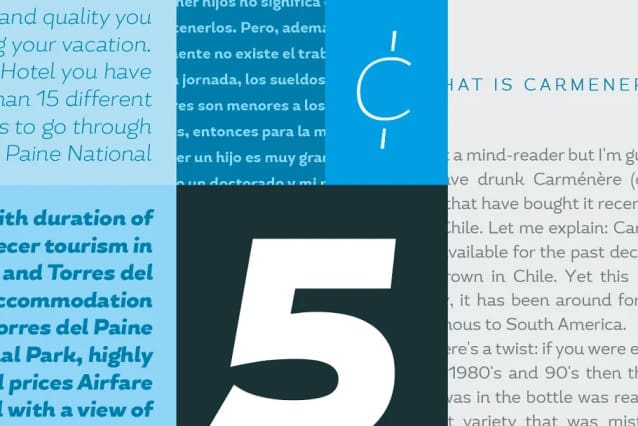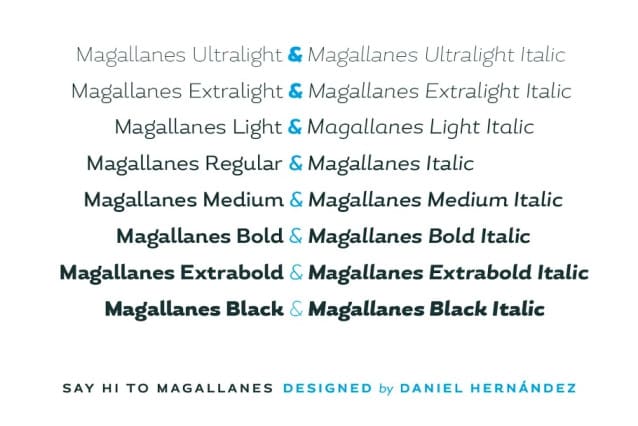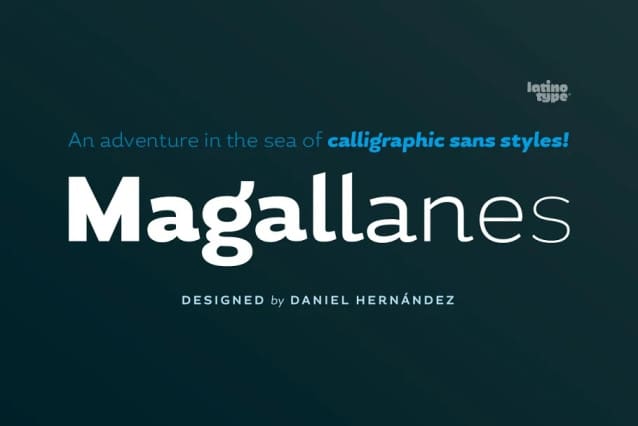
Magallanes Font Family
Magallanes Font Family, a contemporary neo-humanist sans serif font designed by Daniel Hernández. Its strokes and terminals are related to the calligraphic strokes from humanist typefaces. It comes with 8 styles, from Ultra Light to Black, each with its true italics. Every weight comes with alternative glyphs for a more dynamic use. Magallanes is the perfect titling font to complement text faces in magazines, logotypes, etc.